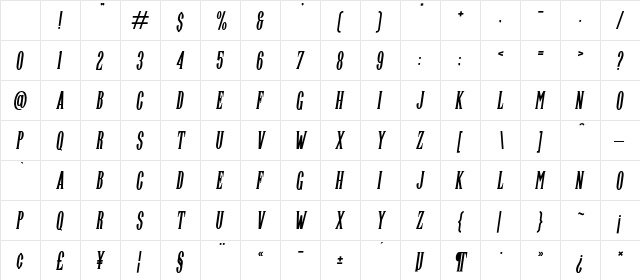
Complete Highwind Italic glyph index. Displaying only characters natively supported by Highwind Italic font.
Highwind is a composed and adaptable typeface that performs quietly and consistently across a wide range of design contexts. The slanted form adds forward momentum and visual energy.
Pro Tip: Use Highwind for emphasis, pull quotes, and subheadings where its slanted energy can add rhythm to the layout.